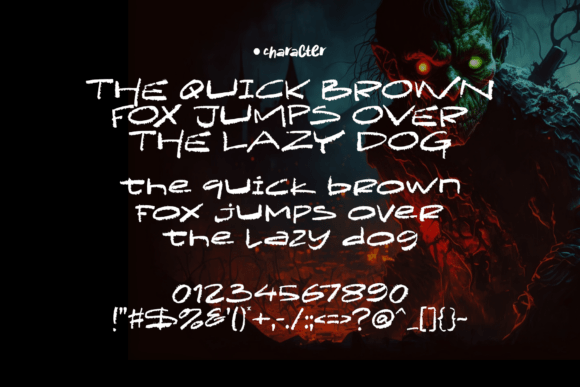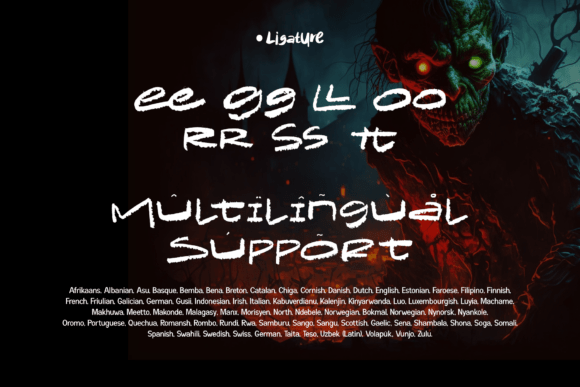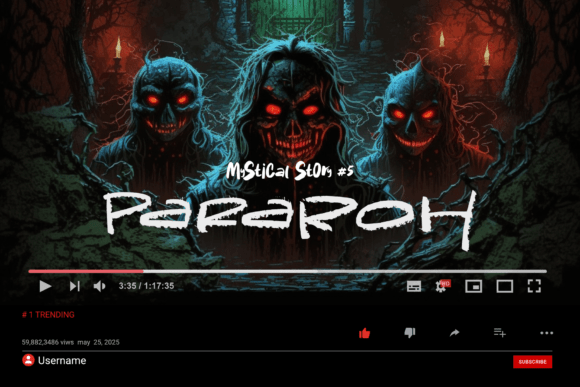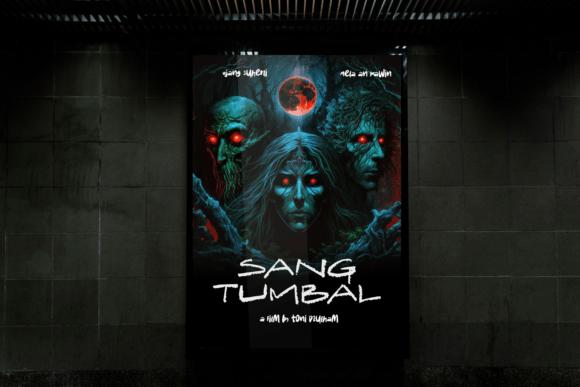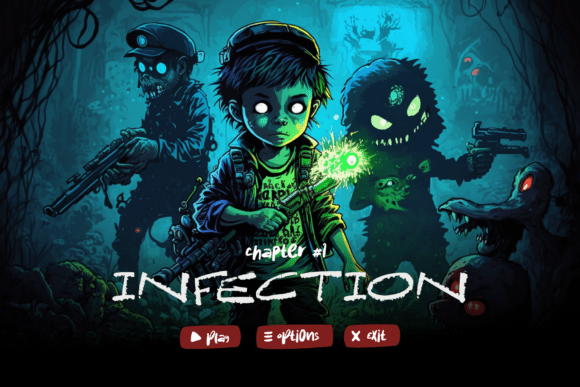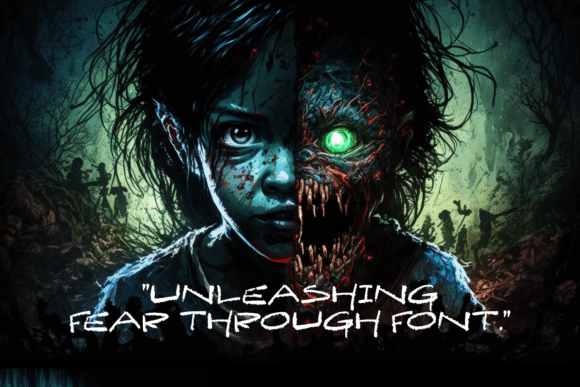
Unleash the Horror: Introducing Goblin Zombies Font
As a designer, have you ever found yourself brainstorming ideas for a project and suddenly, the darkness creeps in? The moon is full, the wind is howling, and your imagination runs wild with terrifying possibilities. That’s exactly where the Goblin Zombies Font comes in – a captivating horror font that embodies the eerie and macabre essence, perfect for designs that embrace the horror genre.
This unique font combines the hand-drawn sketch aesthetics with a twisted and decaying style, creating an atmosphere that is both haunting and unsettling. Whether you’re working on a horror movie poster, a spine-chilling book cover, or any design that aims to evoke a sense of horror, the Goblin Zombies Font is the perfect choice.
With its versatility and ability to send shivers down the reader’s spine, this font is a valuable tool for designers looking to create an unforgettable and fear-inducing experience.
Goblin Zombies Font Key Features
- Font Family: Goblin Zombies, a unique and eerie font designed to evoke a sense of dark fantasy.
- Character Count: 256 characters, including uppercase and lowercase letters, numbers, and special characters, making it suitable for various applications.
- Unique Characteristics: The font features a distressed, hand-drawn look with a mix of gothic and horror elements, adding a touch of macabre charm to any design.
Goblin Zombies Font Review
I was excited to dive into the Goblin Zombies Font, a font that promises to bring a touch of the undead to your designs. Here’s my honest take:
- Unique aesthetic: The Goblin Zombies Font has a distinctive look that’s perfect for horror-themed projects or anything that needs a bit of an edge.
- Great for titles and headings: The font is bold and attention-grabbing, making it ideal for use in titles and headings where you want to draw the viewer’s eye.
- Customization options: The font comes with a range of customization options, including size, color, and opacity, giving you a high degree of control over how it looks.
- Not suitable for body text: While the font is great for titles and headings, it’s not the best choice for body text, as it can be difficult to read in smaller sizes.
- Limited character set: The font’s character set is limited, which may make it difficult to use in certain languages or for projects that require a wide range of characters.
Overall, I think the Goblin Zombies Font is a great choice for designers who want to add a touch of the undead to their projects. While it has some limitations, its unique aesthetic and customization options make it a valuable addition to any design toolbox.
To get the most out of the Goblin Zombies font, experiment with different sizes, colors, and styles.
Use it for horror-themed designs, such as spooky invitations or haunted house decorations.
Combine it with other fonts for a unique and eerie look.
The Goblin Zombies font is perfect for:
Horror-themed designs
Spooky invitations
Haunted house decorations
Dark fantasy art